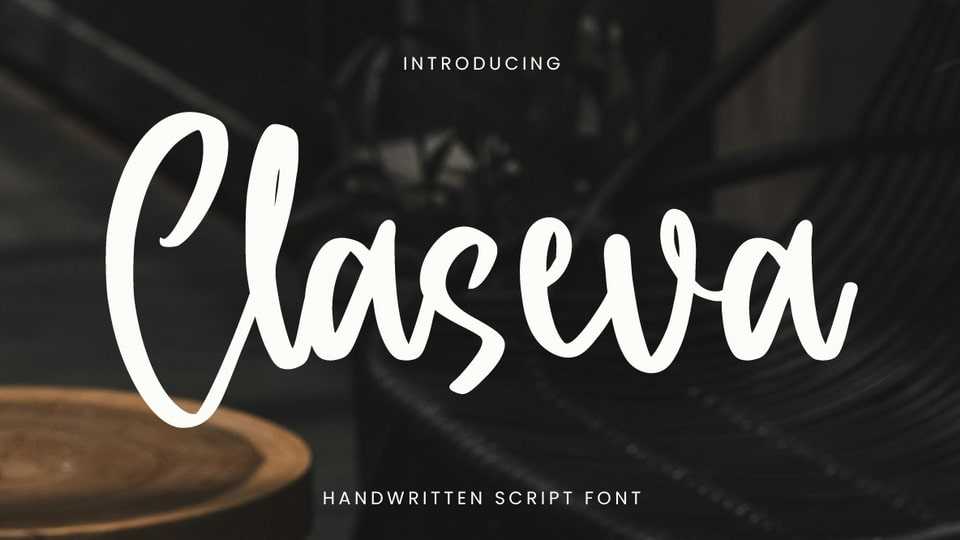
Download Claseva font, not just an ordinary script typeface. It is born from the beauty of free-flowing handwriting, delivering a warm touch in every letter.
Designer: Rvandtype Studio